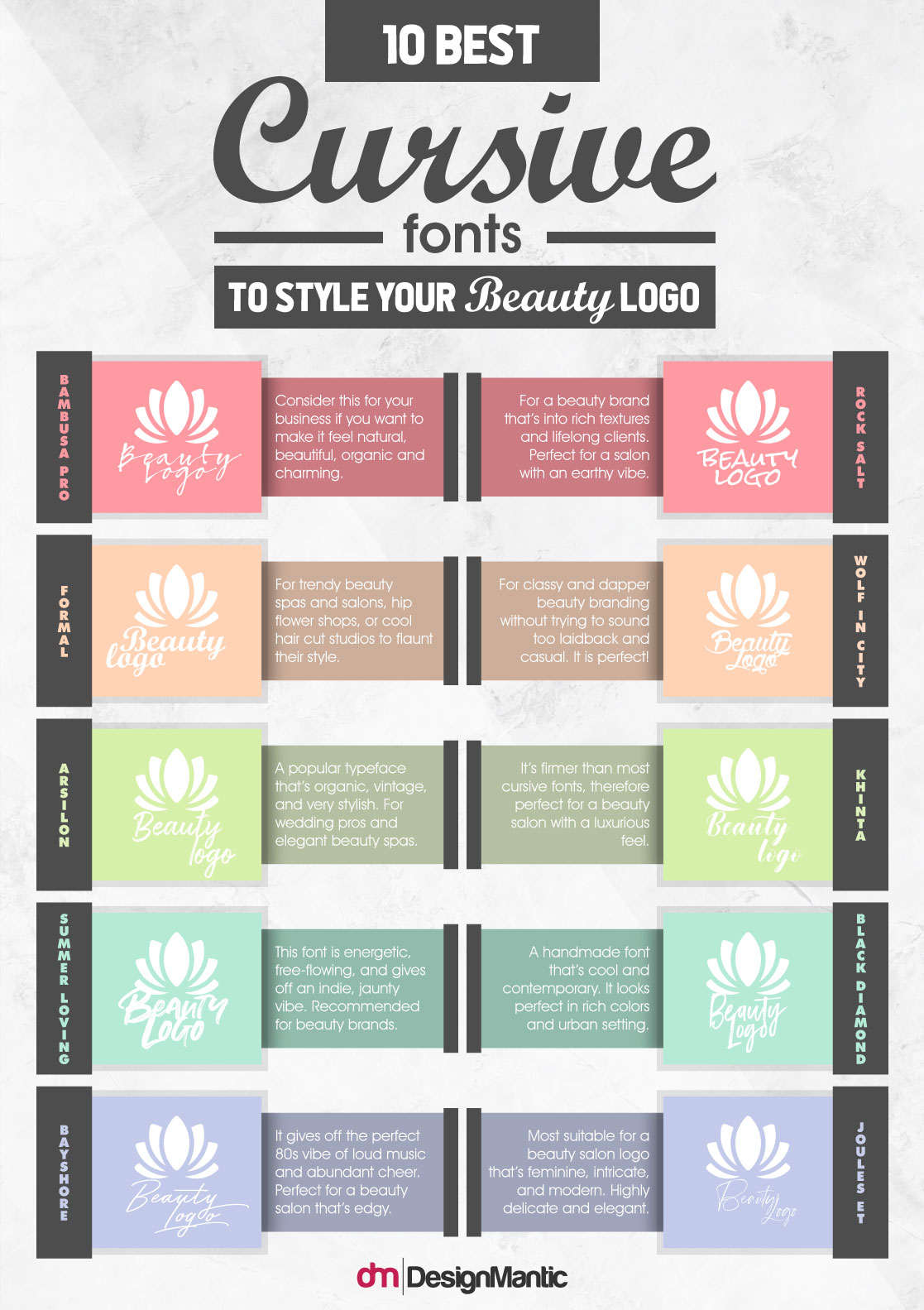
10 Best Cursive Fonts To Style Your Beauty Logo -
Fonts are essential branding elements that can make or break a logo. The right typeface can elevate your logo, while a poor choice can ruin the whole thing. Deciding what typeface to choose for your beauty logo is more than just a personal taste. It has to be strategic because the right font choice gives your brand message the traction it needs.
There are thousands of fonts – free as well as customized – available for graphic designers online. But knowing which one to choose can be somewhat overwhelming, especially if you’re new to the trade. Therefore, in this infographic, we are simplifying the process for you a little bit.
While there are tons of Serif and Sans Serif fonts that help create remarkable beauty logo, we feel Cursives have got something unique to offer. Cursive fonts have this innate femininity and delicate textures that do justice to beautiful imagery. What’s more, the Cursive fonts look unmistakably handwritten. What this means for your beauty brand is that it makes you seem more approachable, friendlier, and charming.
Below, you will find a list of 10 cursive fonts that we’ve put together for you. All of these are customized fonts, created by graphic designers that can elevate the whole look of your brand and amplify the message you’re trying to send. From trendy beauty spas to more classy hair salon centers, these fonts help you give the best finishing touches to your beauty logo design.
What’s more, as you start working on these fonts, you can also alter them subtly to make sure they give you the exact look of the logo that you want. As you keep evolving as a graphic designer, these fonts help you create pieces that differentiate your work from the rest. Investing in custom Script typography does not only make good business sense, but it also gives more font-variety to your work.  It also helps you understand typefaces better and enables you to learn how to use your design knowledge to enhance the uniqueness of your logo design for beauty blogs or brands.
Best Cursive Fonts